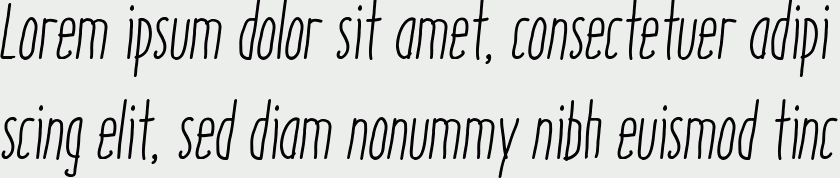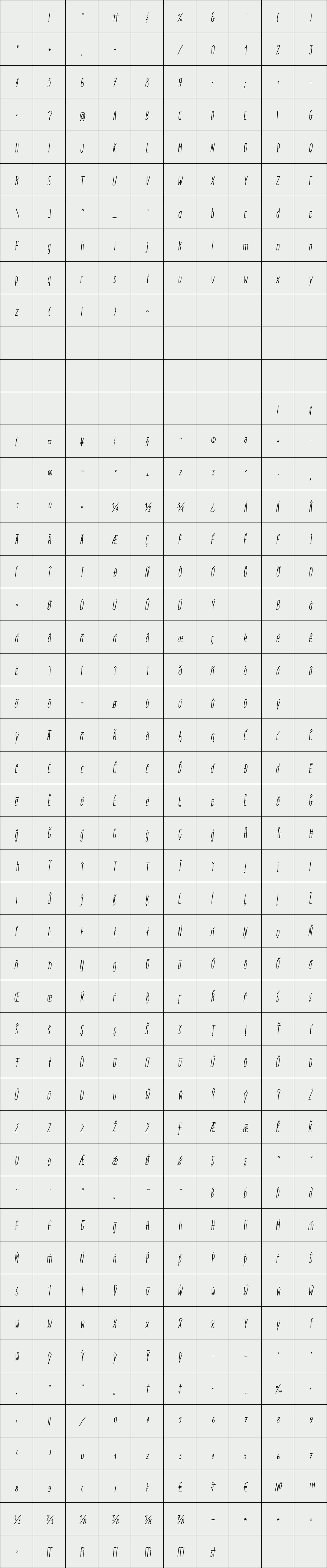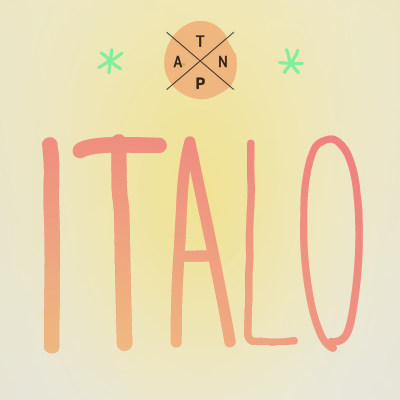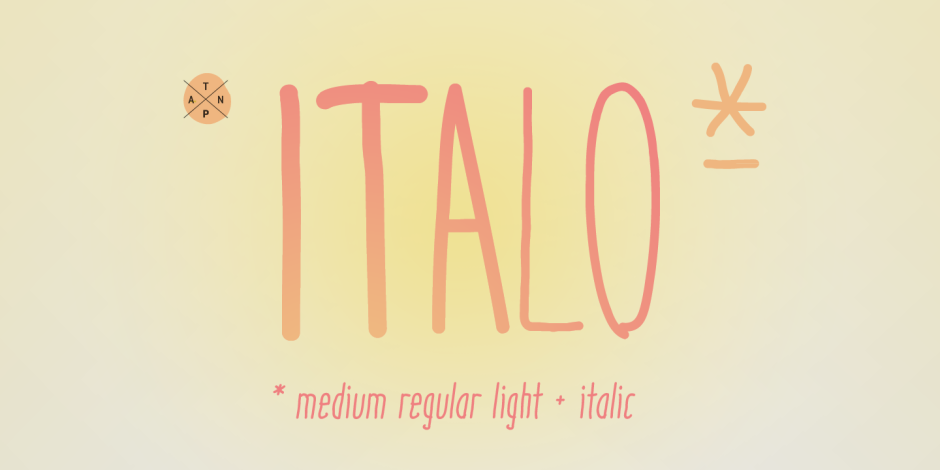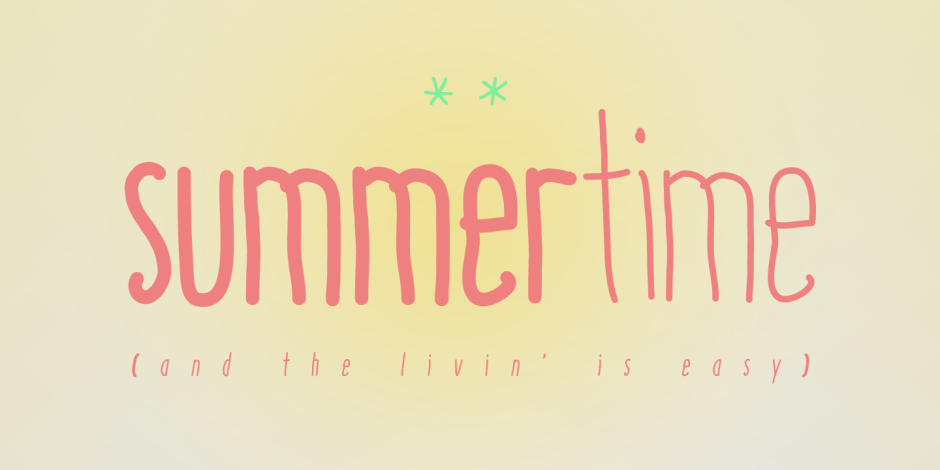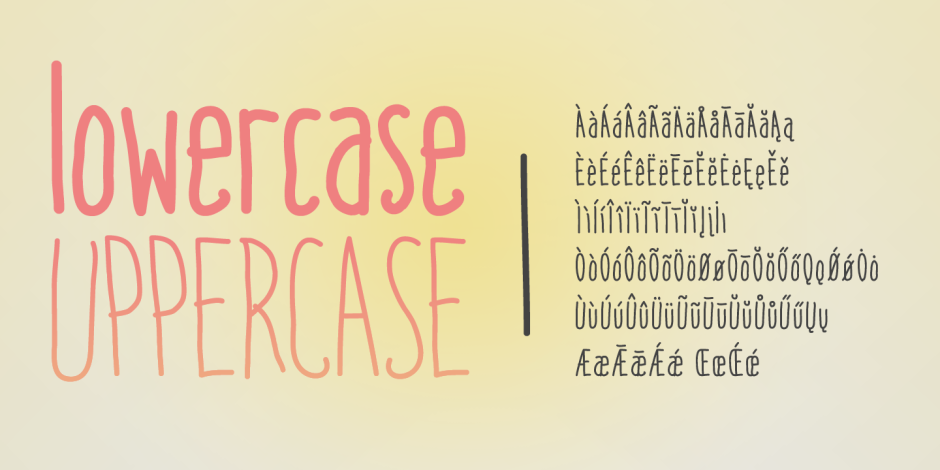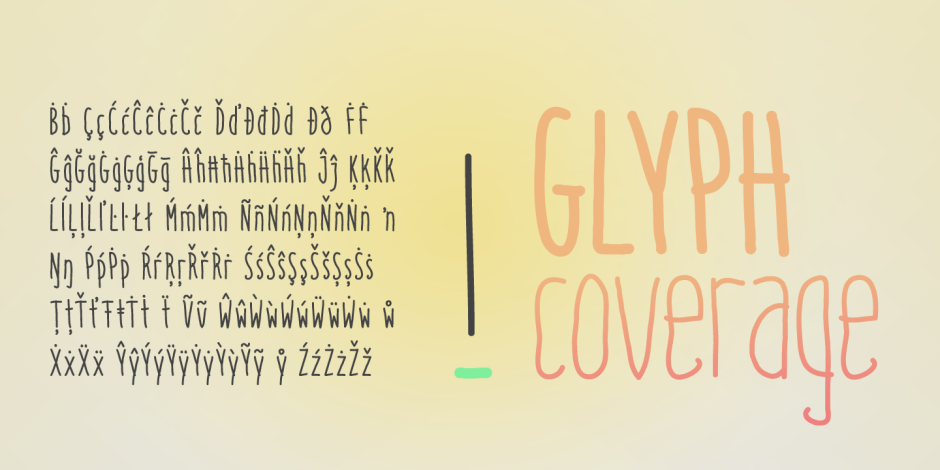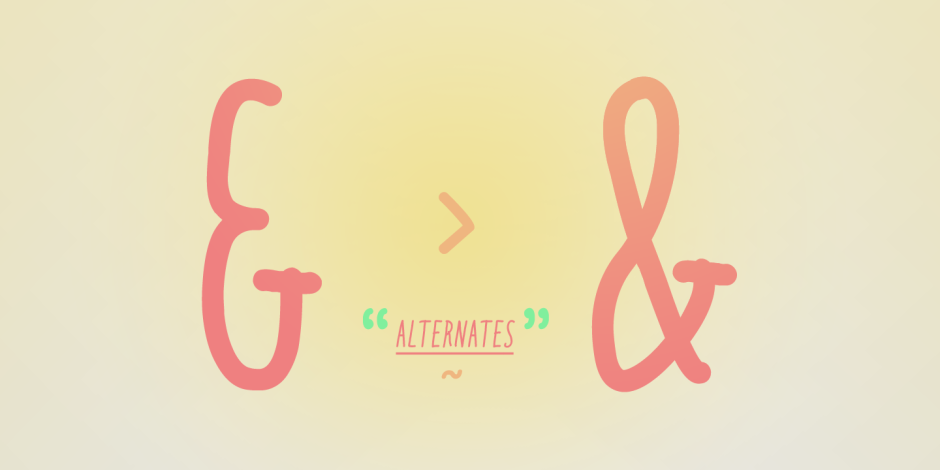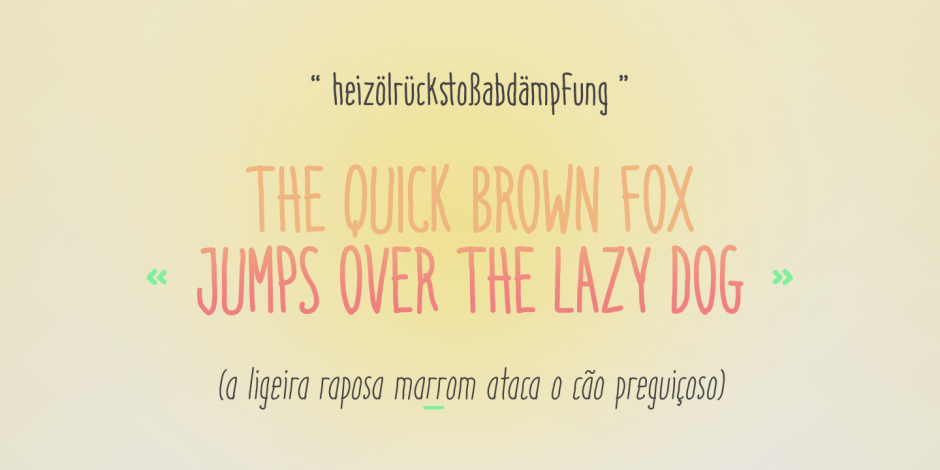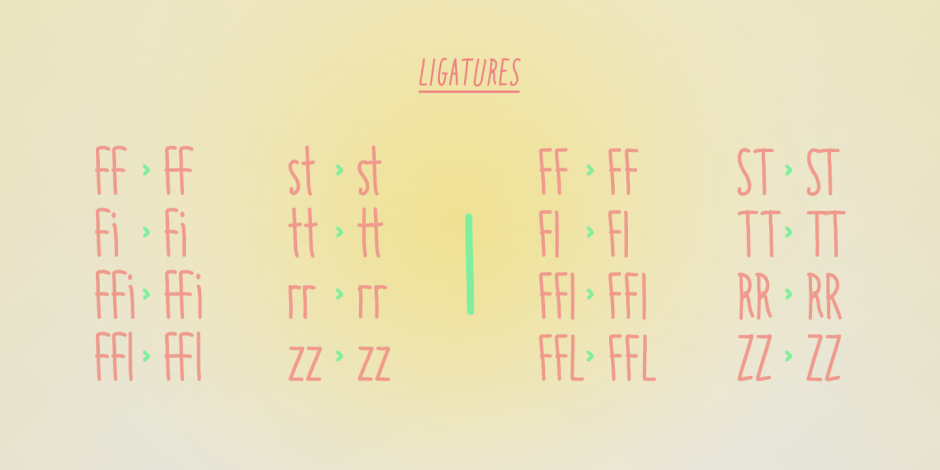
Italo
/ Italo Regular Italic
Italo is a decorative, friendly, san-serif handwritten font. This font will provide an informal, cute look to your work! It can be used for small ammount of text, and display usage because of its glyph quality.
Italo offers OpenType features, including ligatures, alternates, smallcaps, scientific superior/inferior figures, oldstyle figures, fractions.